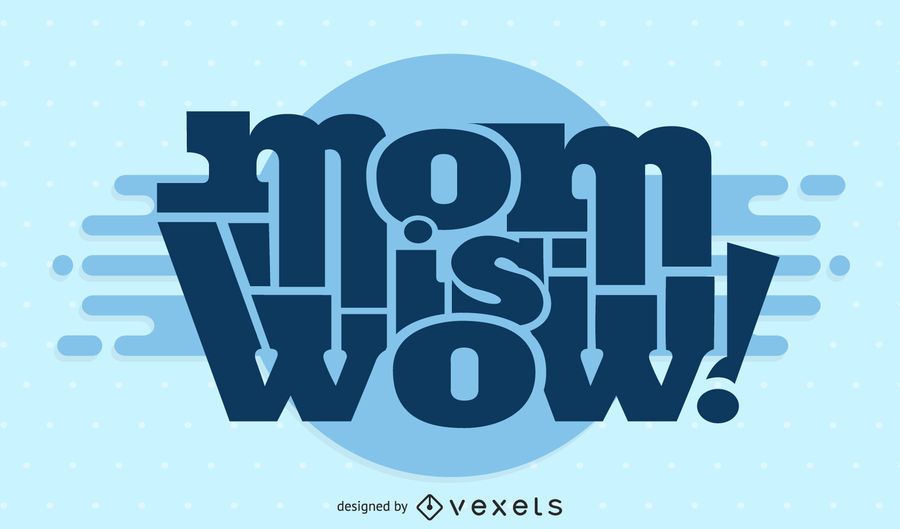
Mothers Day Font Design
Mothers day font design features artistic deformed characters "Mom is wow!" text label over circle dot and rounded shapes base in blue color scheme.